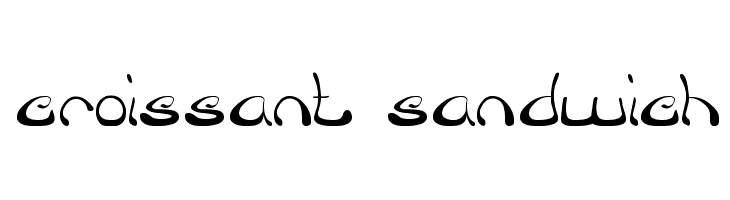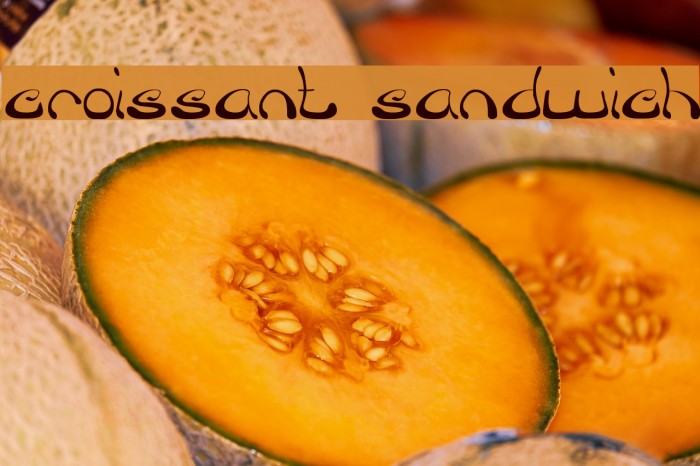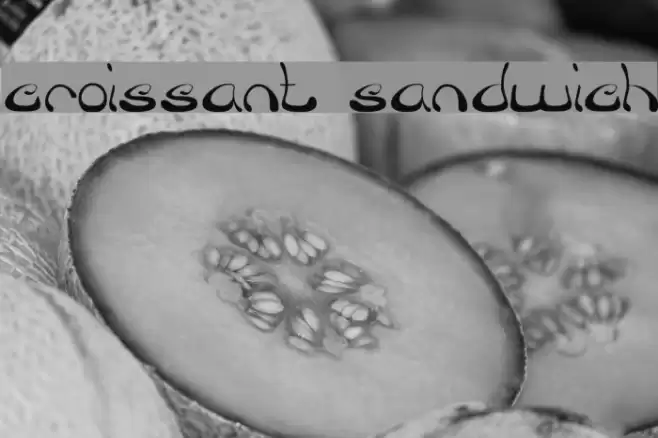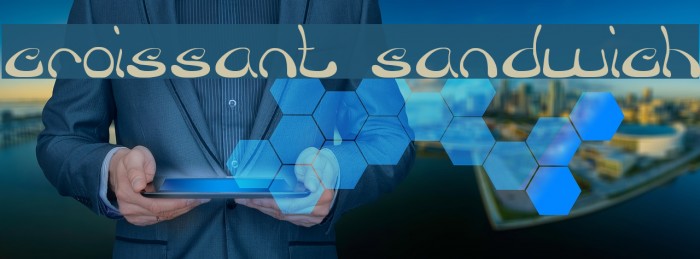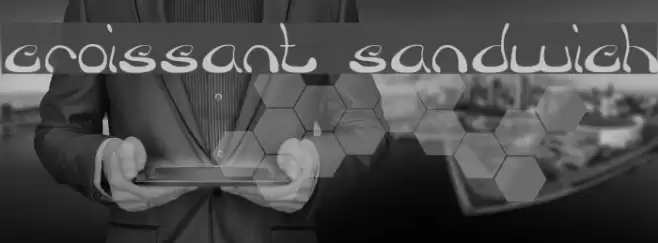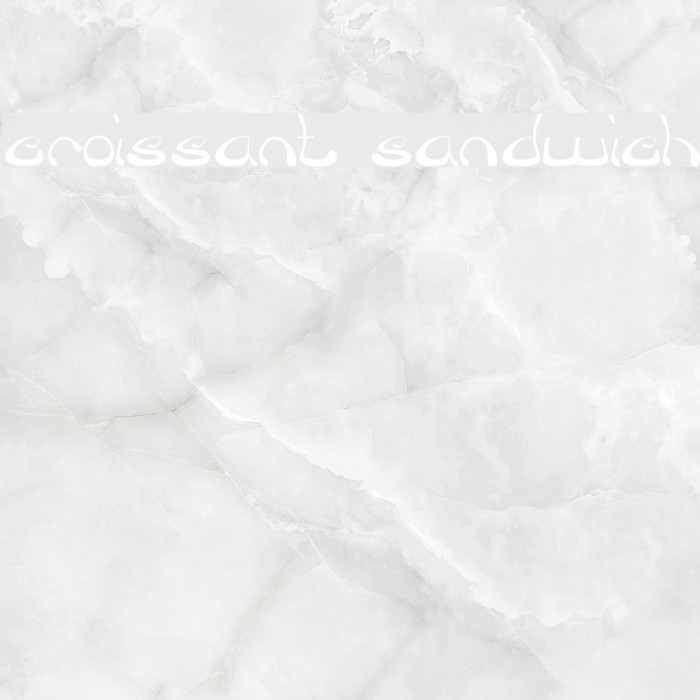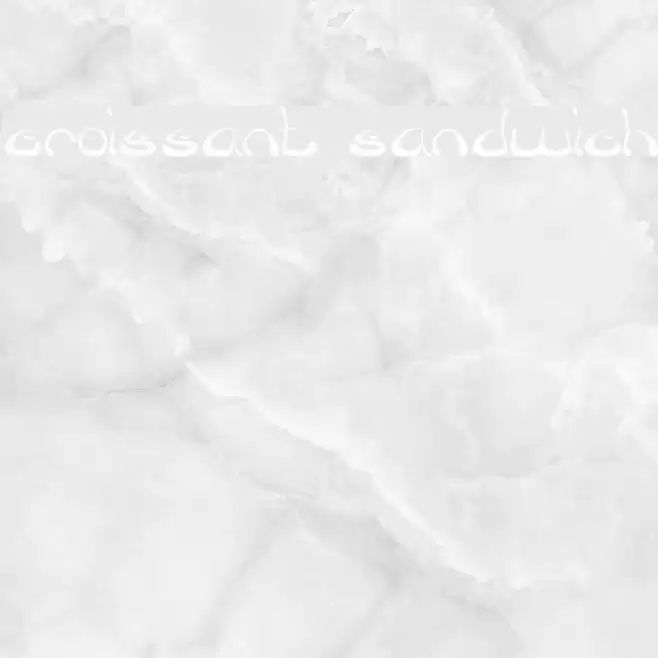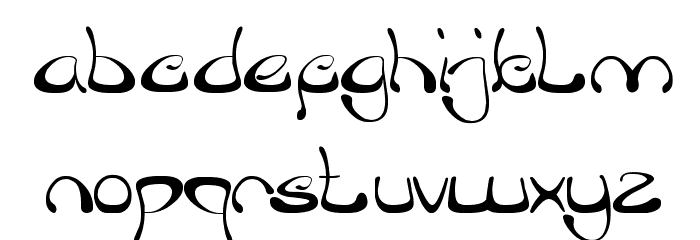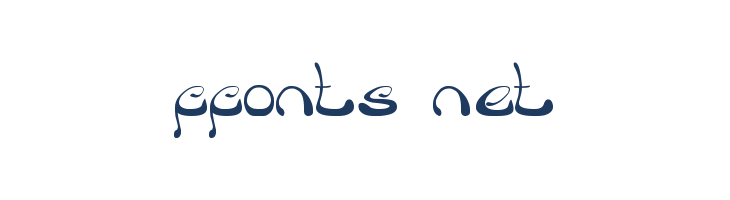
croissant sandwich Font
croissant sandwich Description
This font features a whimsical and playful design, characterized by its unique, flowing curves and artistic flair. The letters exhibit a hand-drawn quality, with varying stroke thickness that adds a dynamic and lively feel. The lowercase letters are particularly distinctive, with exaggerated loops and swirls that create a sense of movement and creativity. The overall appearance is both modern and artistic, making it suitable for projects that require a touch of personality and flair. The font's style is reminiscent of calligraphy, yet it maintains a contemporary edge, making it versatile for various design applications.
| Use Case | Logos, Artistic posters, Invitations |
| Proposed Projects | Ideal for creative projects such as invitations, greeting cards, artistic posters, and branding materials that require a unique and playful touch. |